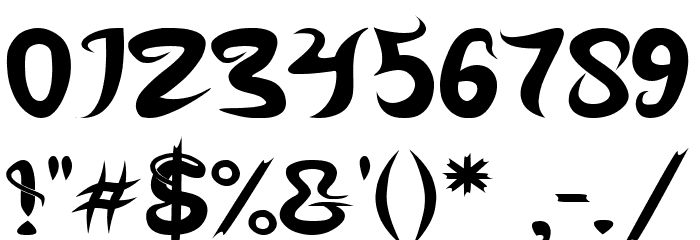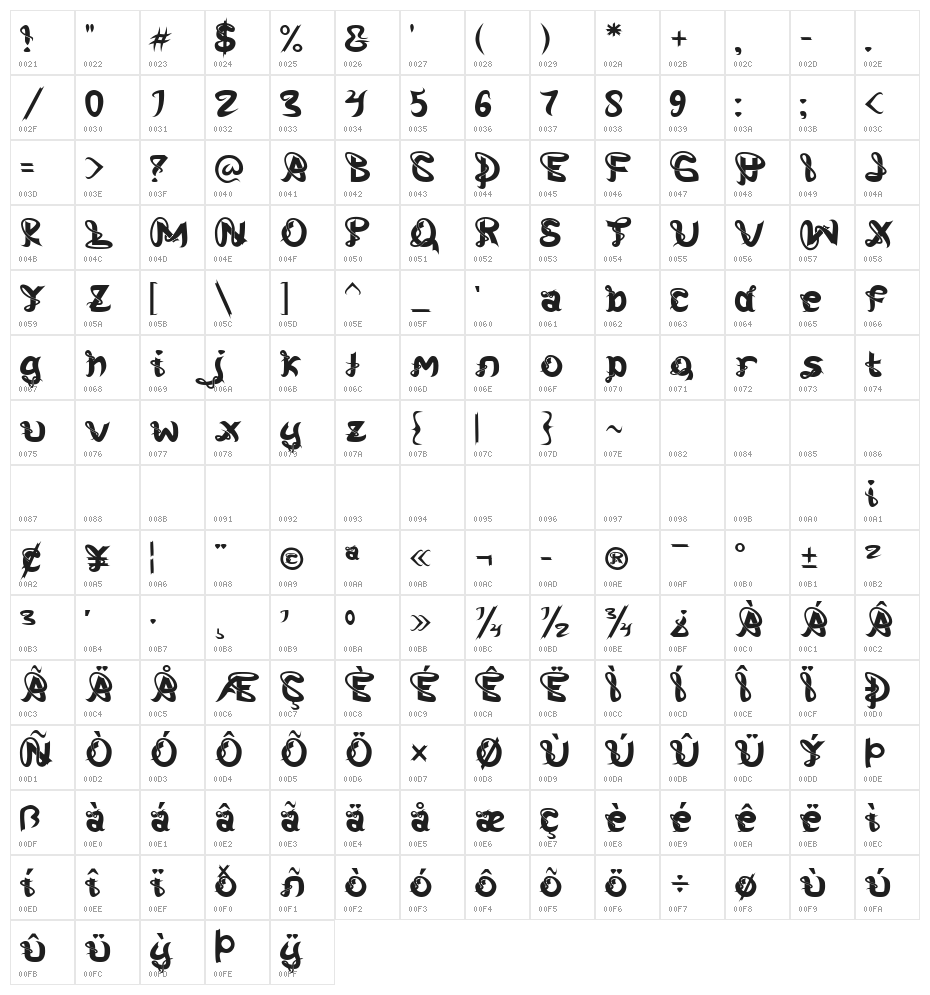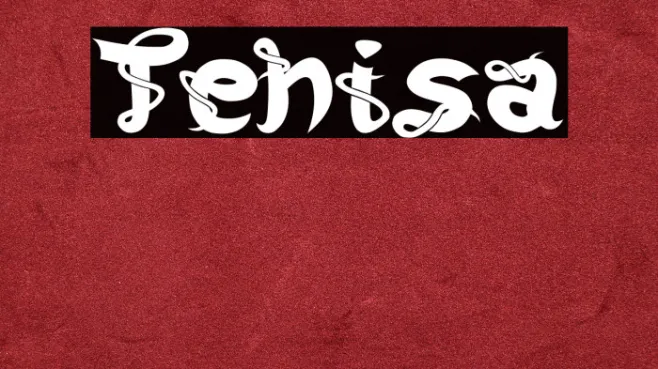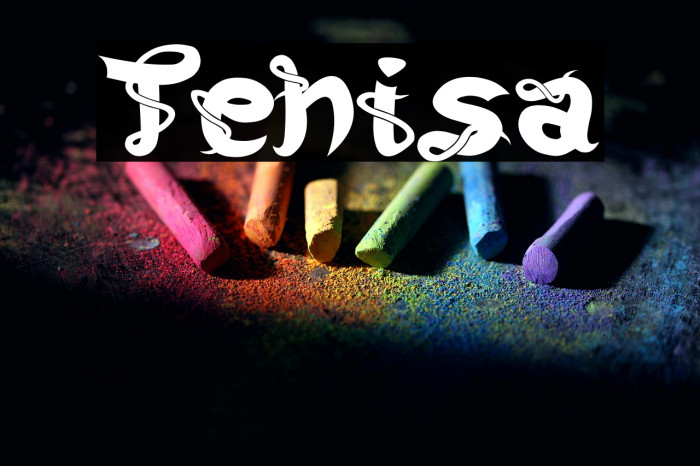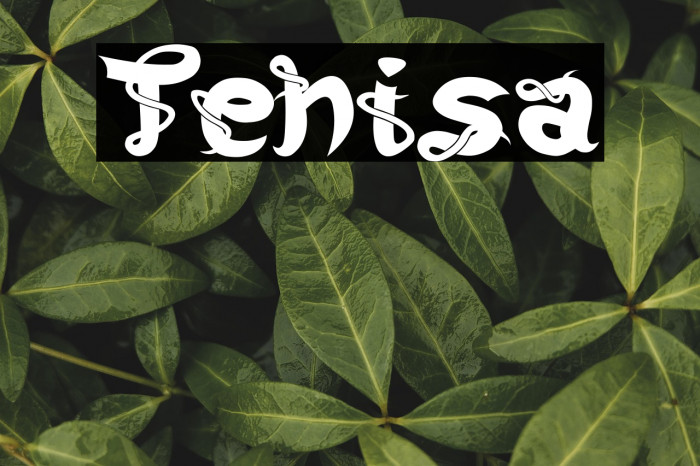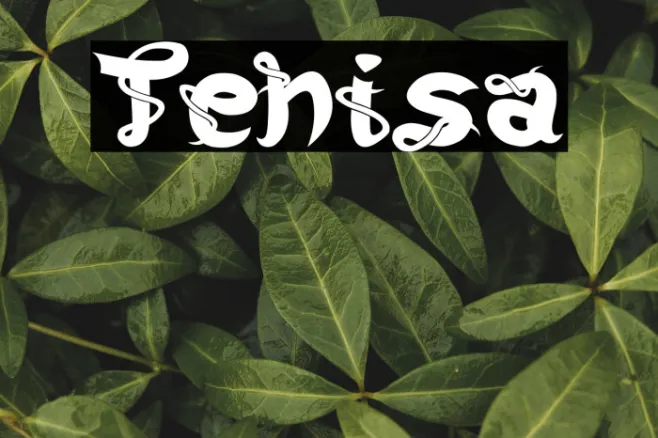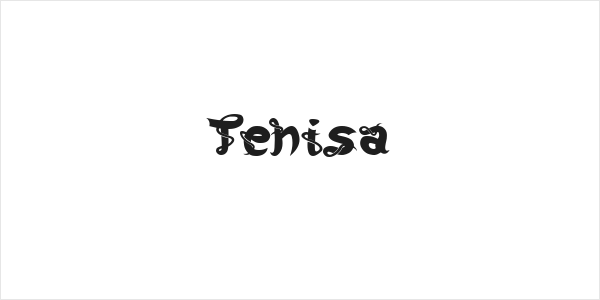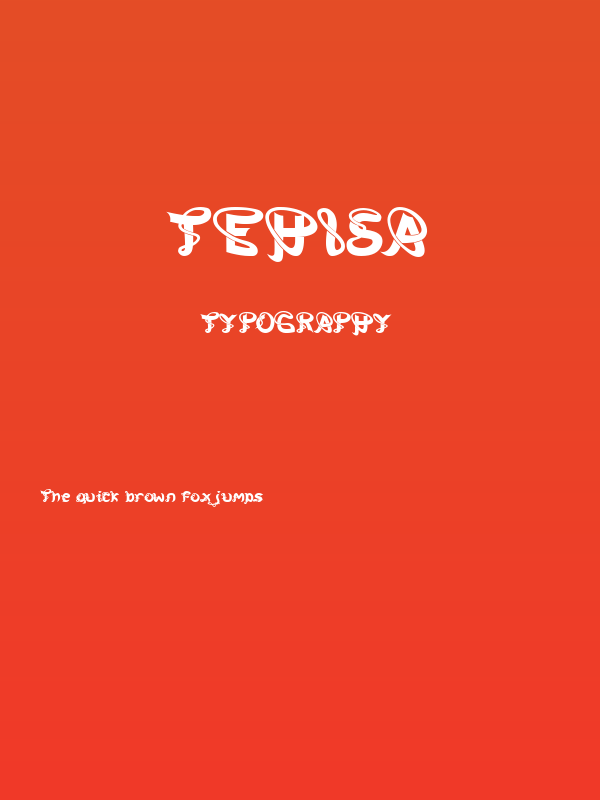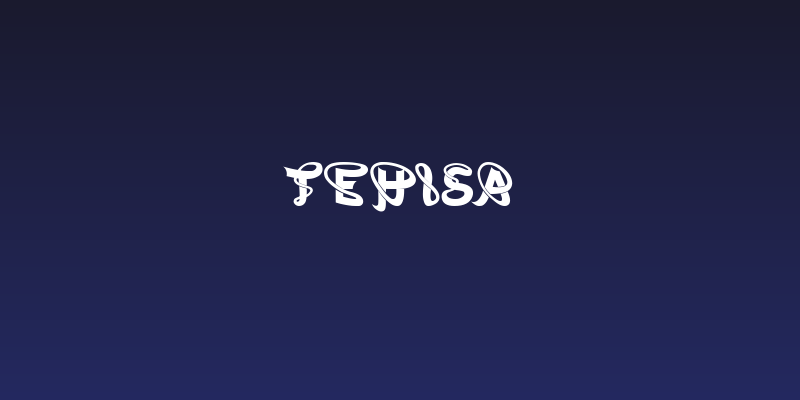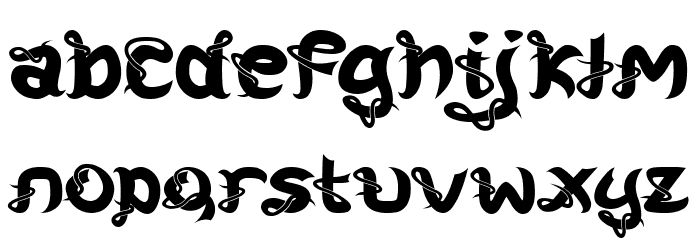
Tehisa Font
Tehisa Description
This font features a bold and decorative style with intricate, swirling embellishments that give it a unique and artistic flair. Each character is adorned with elegant curves and loops, creating a sense of movement and fluidity. The uppercase and lowercase letters maintain a consistent design theme, while the numerals and special characters are equally ornate. The overall appearance is both striking and sophisticated, making it suitable for projects that require a touch of elegance and creativity.
| Use Case | Headlines, Logos, Artistic projects |
| Proposed Projects | Ideal for invitations, posters, branding, and artistic projects that require a decorative and elegant touch. |